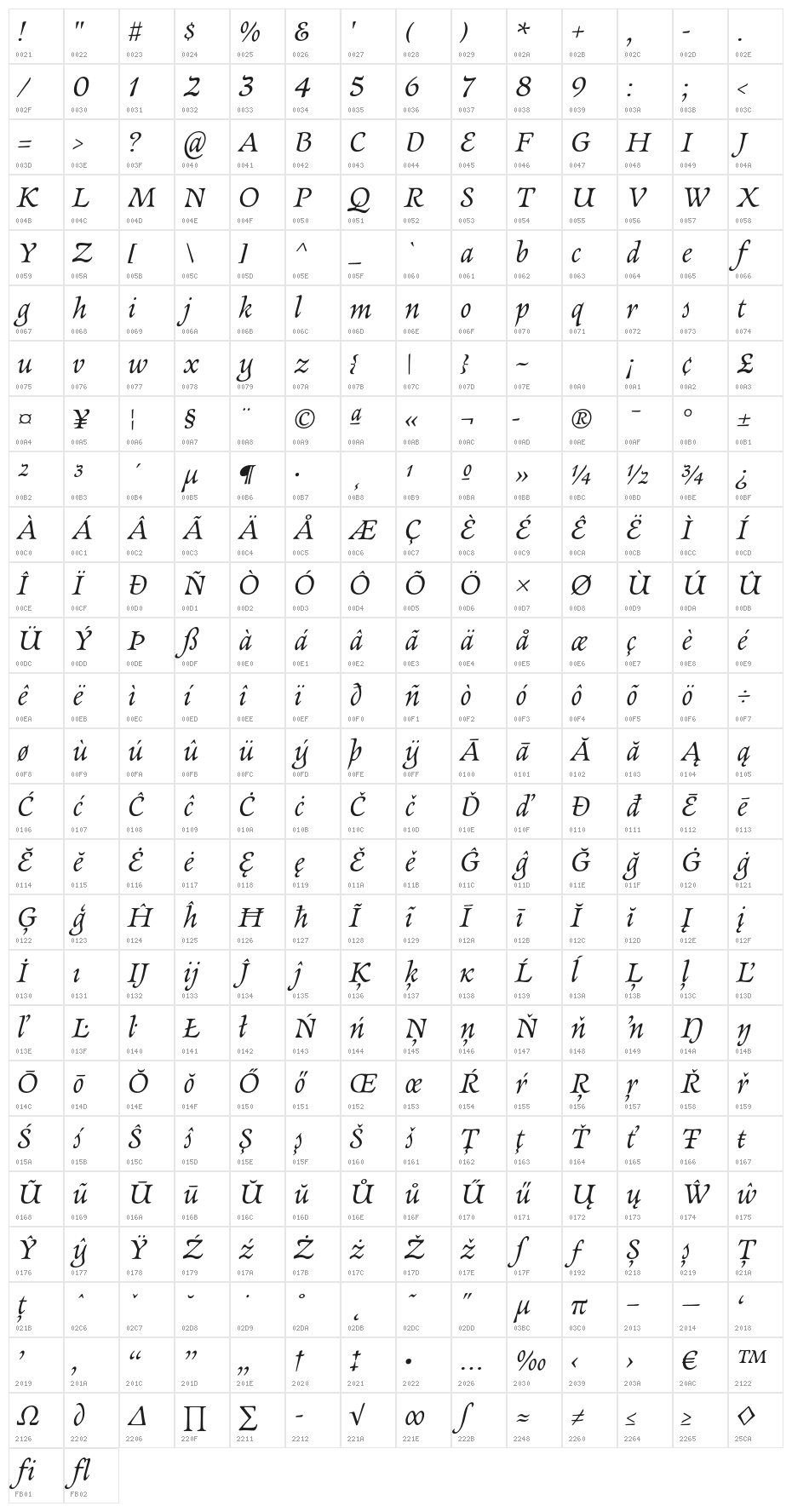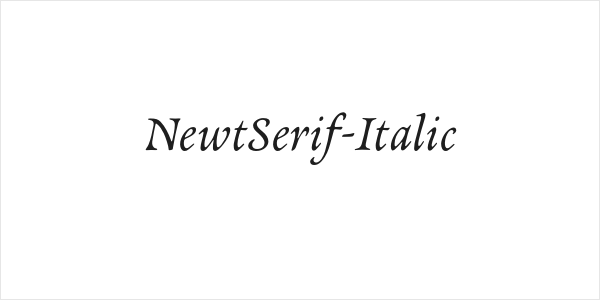
NewtSerif-Italic Font
NewtSerif-Italic Description
This font exhibits a classic serif style with a distinct italic slant, giving it an elegant and sophisticated appearance. The characters are well-defined with smooth curves and sharp serifs, providing a traditional yet dynamic feel. The uppercase letters are slightly more formal, while the lowercase letters maintain a consistent flow, enhancing readability. Numerals are clear and balanced, matching the overall aesthetic. The special characters are designed with the same attention to detail, ensuring uniformity across all glyphs.
Overall StyleClassic
Proposed ProjectsIdeal for formal invitations, elegant branding, book covers, and editorial design.